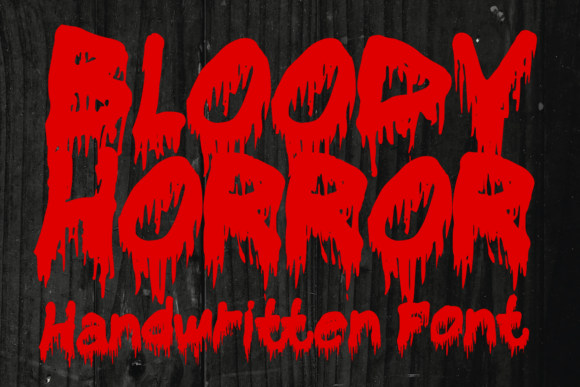
The Bloody Horror Font: A Spook-tacular Addition to Your Design Arsenal
I’ll never forget the time I was working on a Halloween-themed project for a client, and I just couldn’t seem to find the right font to capture the spooky essence of the season. The client wanted something that would make their audience shiver with fear, but I was stuck in a design rut. That was until I stumbled upon the Bloody Horror font – a game-changing, ink-made handwritten font that instantly elevated my design from meh to mesmerizing.
So, what makes the Bloody Horror font so special? Here are a few things that I absolutely love:
• ✨ Unique character: This font has a one-of-a-kind, hand-crafted feel that sets it apart from more generic fonts.
• ✅ Versatility: Whether you’re designing for Halloween, horror-themed projects, or just want to add a touch of edginess to your work, Bloody Horror fits the bill.
• 💀 Perfect for horror and Halloween themes: The font’s eerie, blood-stained aesthetic is sure to send shivers down your audience’s spine.
Of course, no font is perfect, and Bloody Horror has a few minor quirks to consider:
• 🤔 Limited use cases: While the font is incredibly versatile, it’s primarily designed for horror and Halloween-themed projects. If you’re looking for a more neutral font, Bloody Horror might not be the best fit.
• ⚠️ Glyph limitations: Some users have reported issues with certain glyphs not displaying correctly. However, this is relatively rare and usually easily fixable.
One of the best things about Bloody Horror is its support for OpenType features and glyphs. These allow you to customize your text with stylistic alternates, ligatures, and more. To access these features:
According to the font’s creators, Bloody Horror was inspired by the classic horror movies of the 1970s and 80s. They wanted to capture the essence of those spooky, suspenseful moments when the hero stumbles upon a creepy old mansion or encounters a terrifying creature. The result is a font that’s equal parts eerie, playful, and mesmerizing.
Q: What type of projects is Bloody Horror best suited for? A: Bloody Horror is perfect for horror and Halloween-themed projects, including t-shirts, book designs, party invitations, greeting cards, and more.
In conclusion, Bloody Horror is an incredible font that’s sure to add a touch of spooky magic to your designs. With its unique character, versatility, and support for OpenType features and glyphs, it’s the perfect addition to any designer’s arsenal. So go ahead, get creative, and let Bloody Horror cast its spell on your audience!